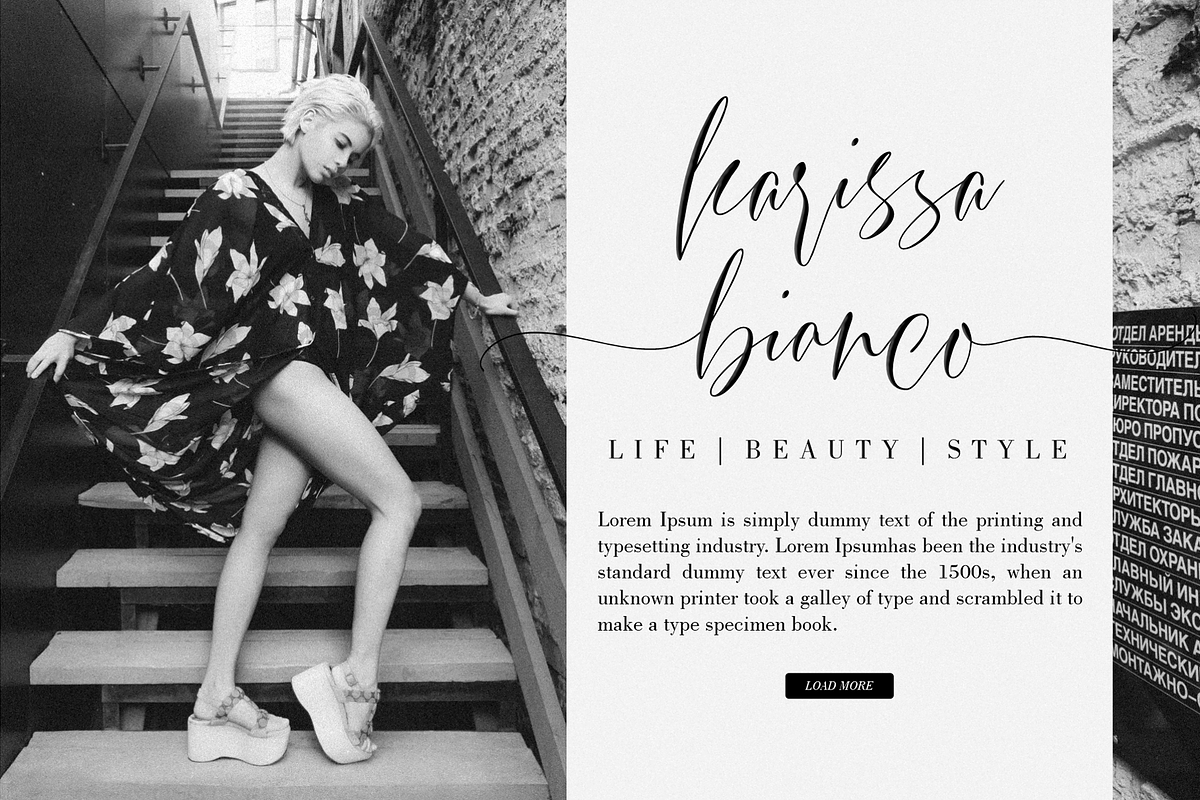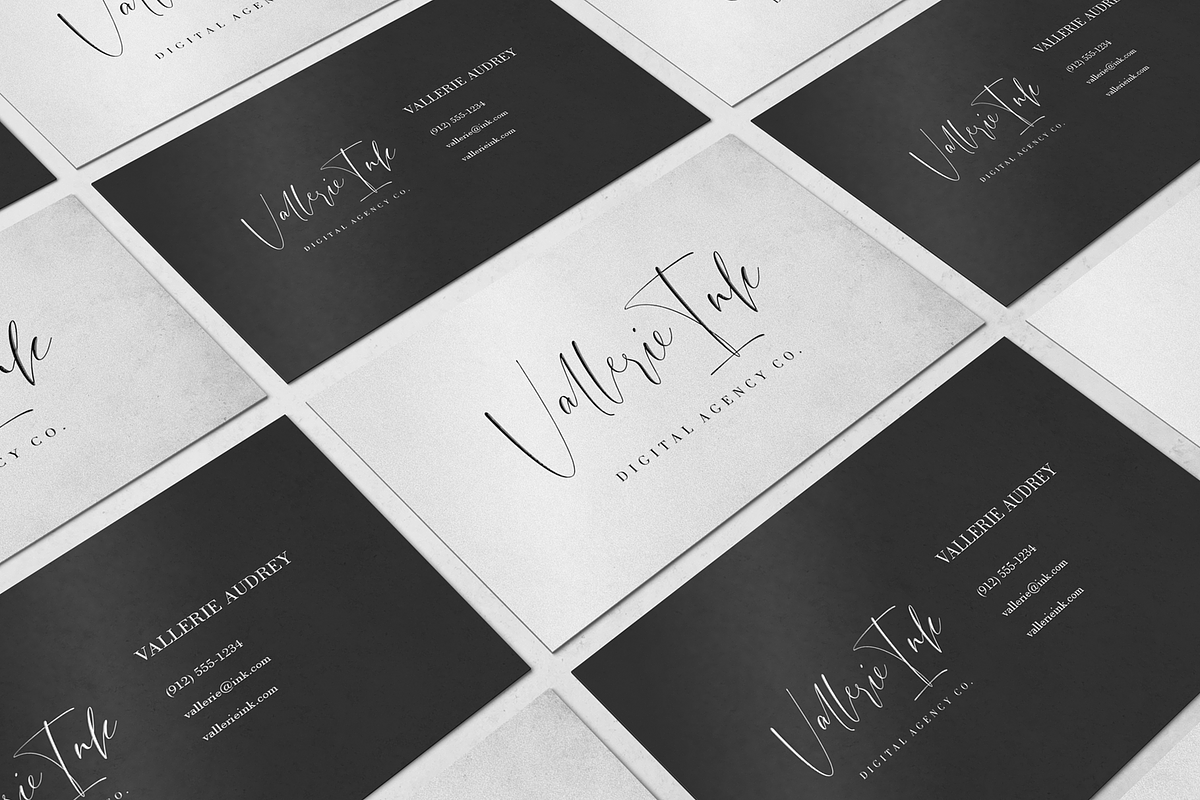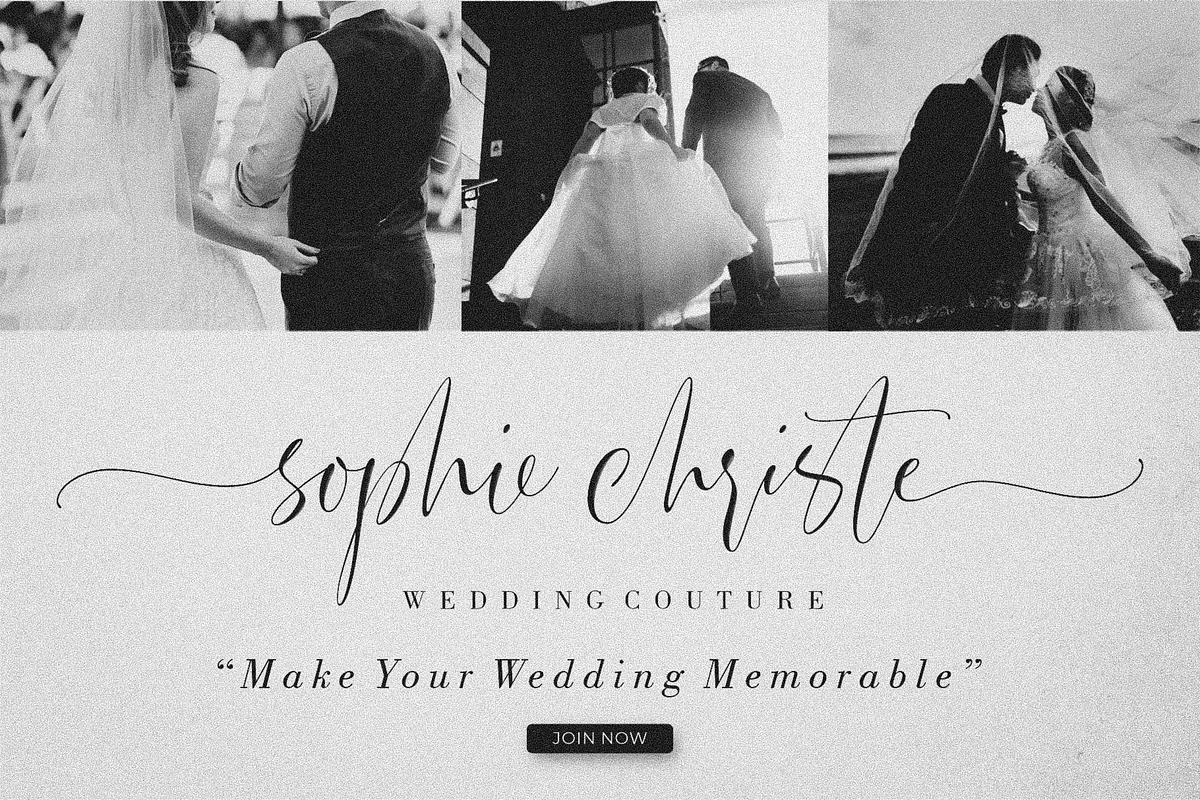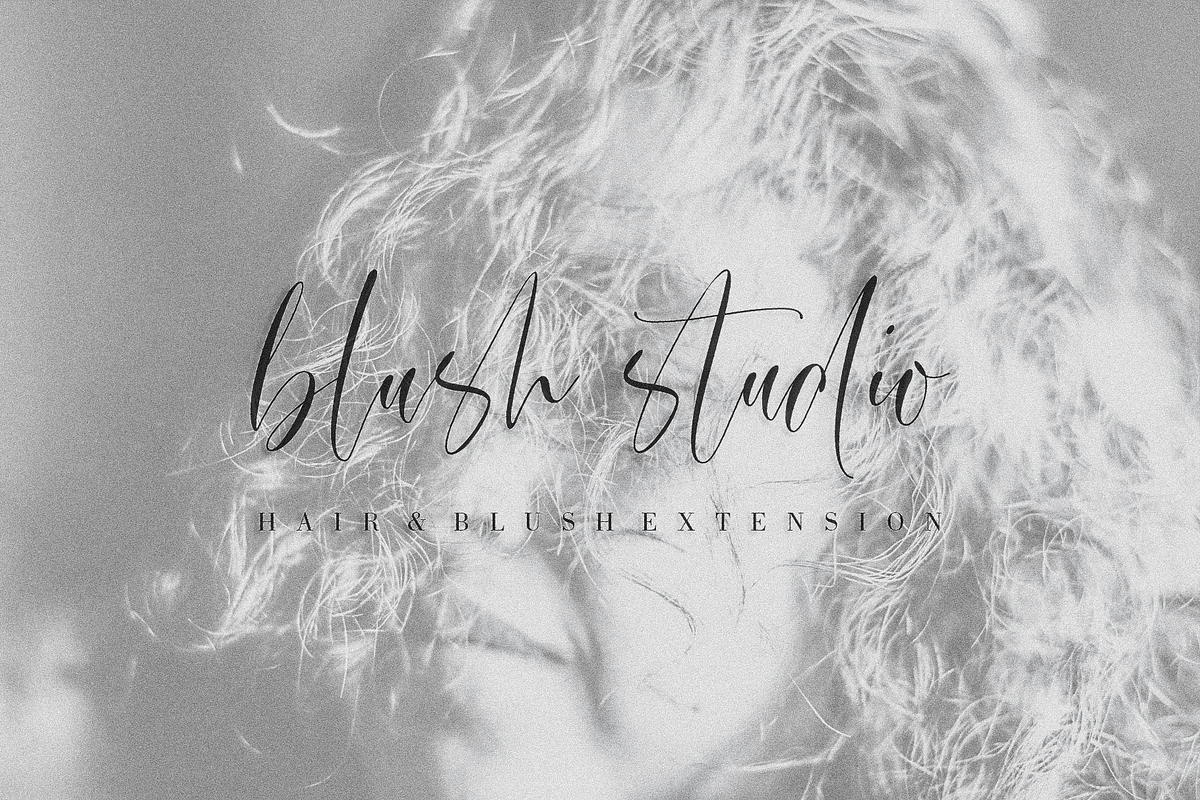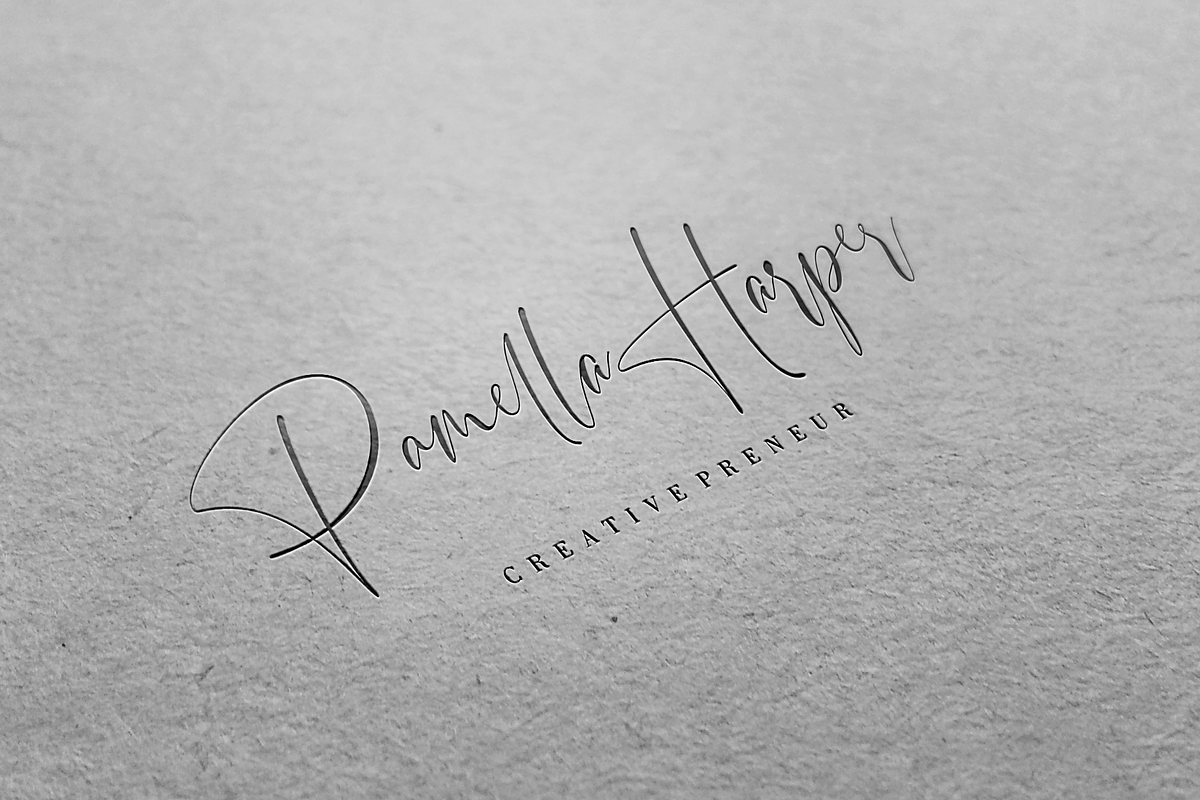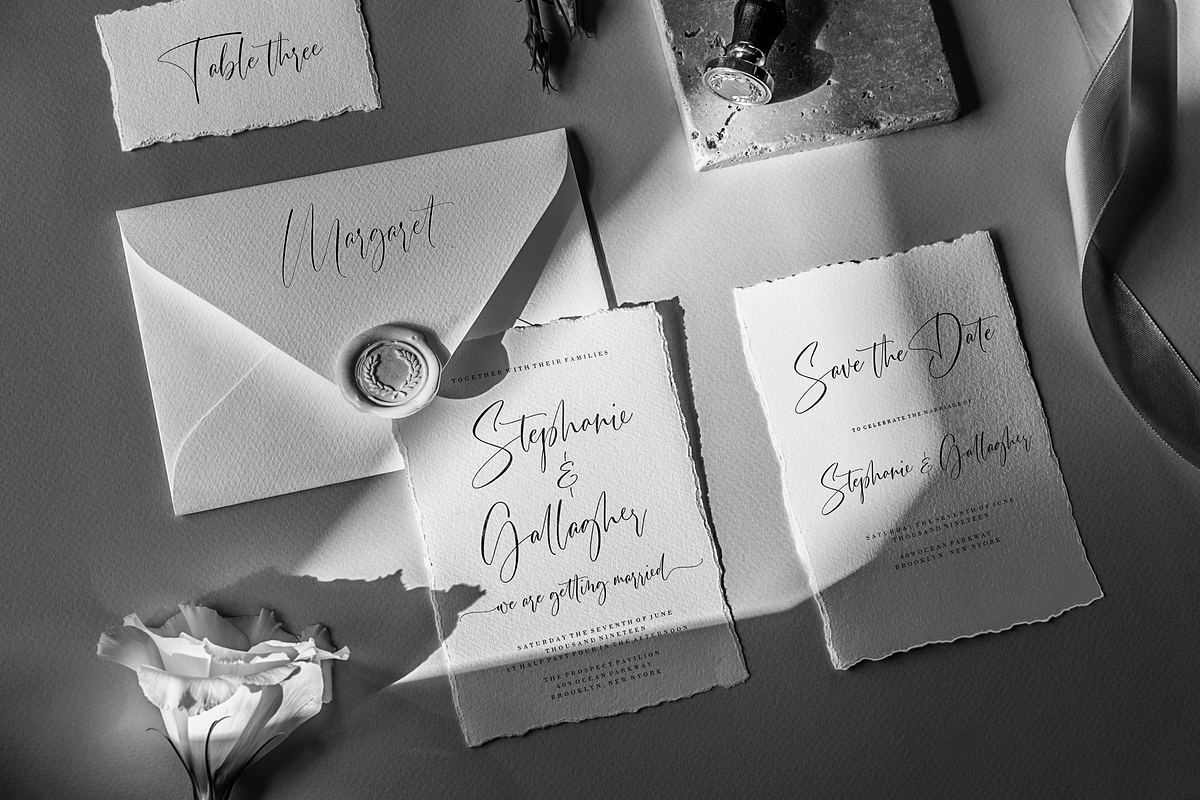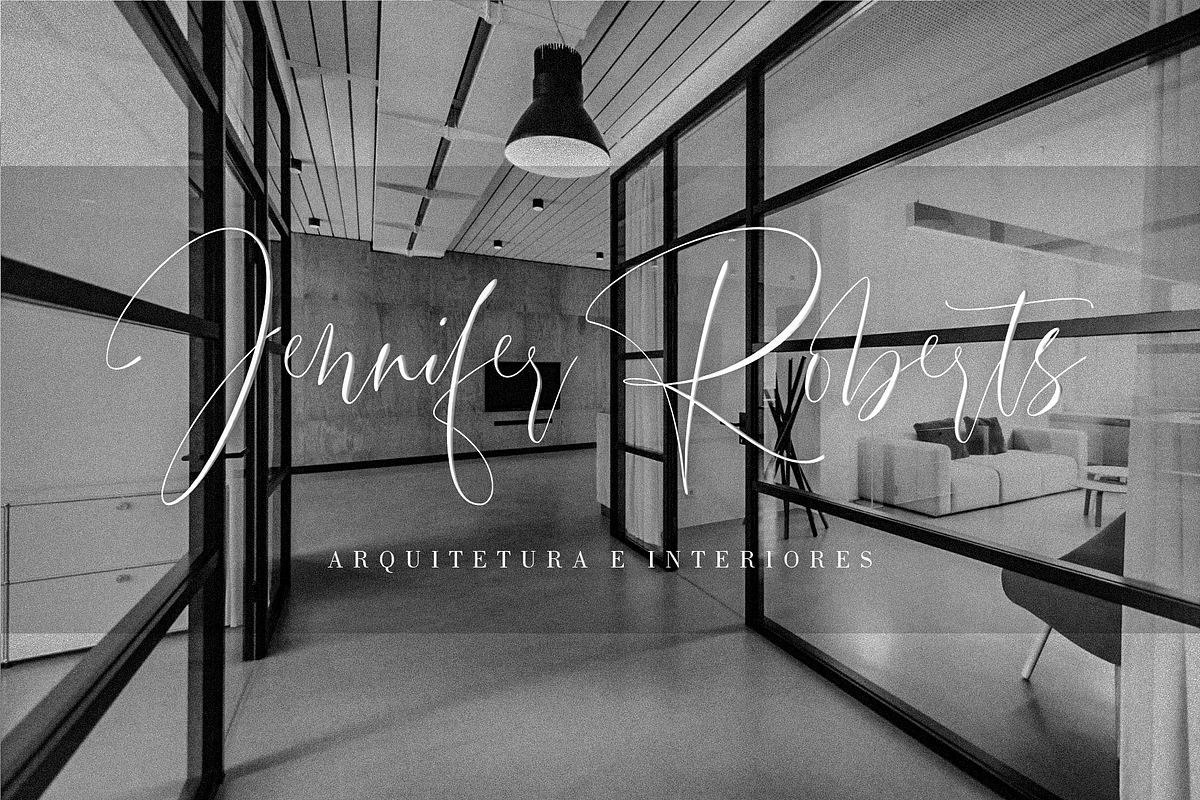
Simplified - Casual Chic Font
Simplified is a casual and natural font, with a spirit of clean-cut modern and classic. This typeface has been specially designed to give a feeling of casual luxury. This is not easy typography! We have done a lot of effort to build this font. In the past, we have experimented with a ton of fonts that are similar to Simplified, and Simplified is better in every aspect that I have found, including some OpenType features and ligatures, lowercase beginning & ending swashes that you can use to make your own style. In short, itβs a typeface that you must have!
A full set of upper & lowercase characters
Numbers & punctuation
63 Gorgeous ligatures
Lowercase beginning swashes
Lowercase ending swashes
- A full set of upper & lowercase characters
- Numbers & punctuation
- 63 Gorgeous ligatures
- Lowercase beginning swashes
- Lowercase ending swashes
- Multilingual symbols